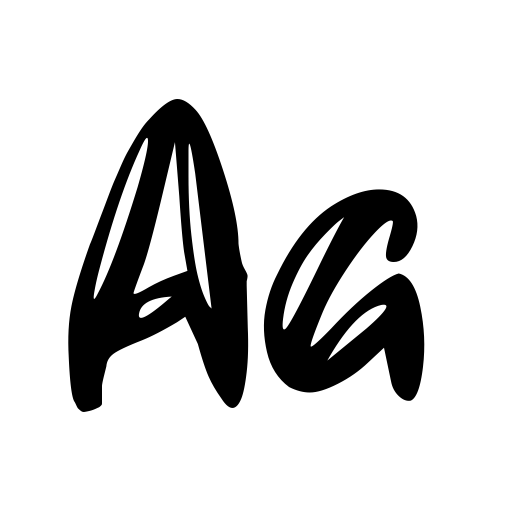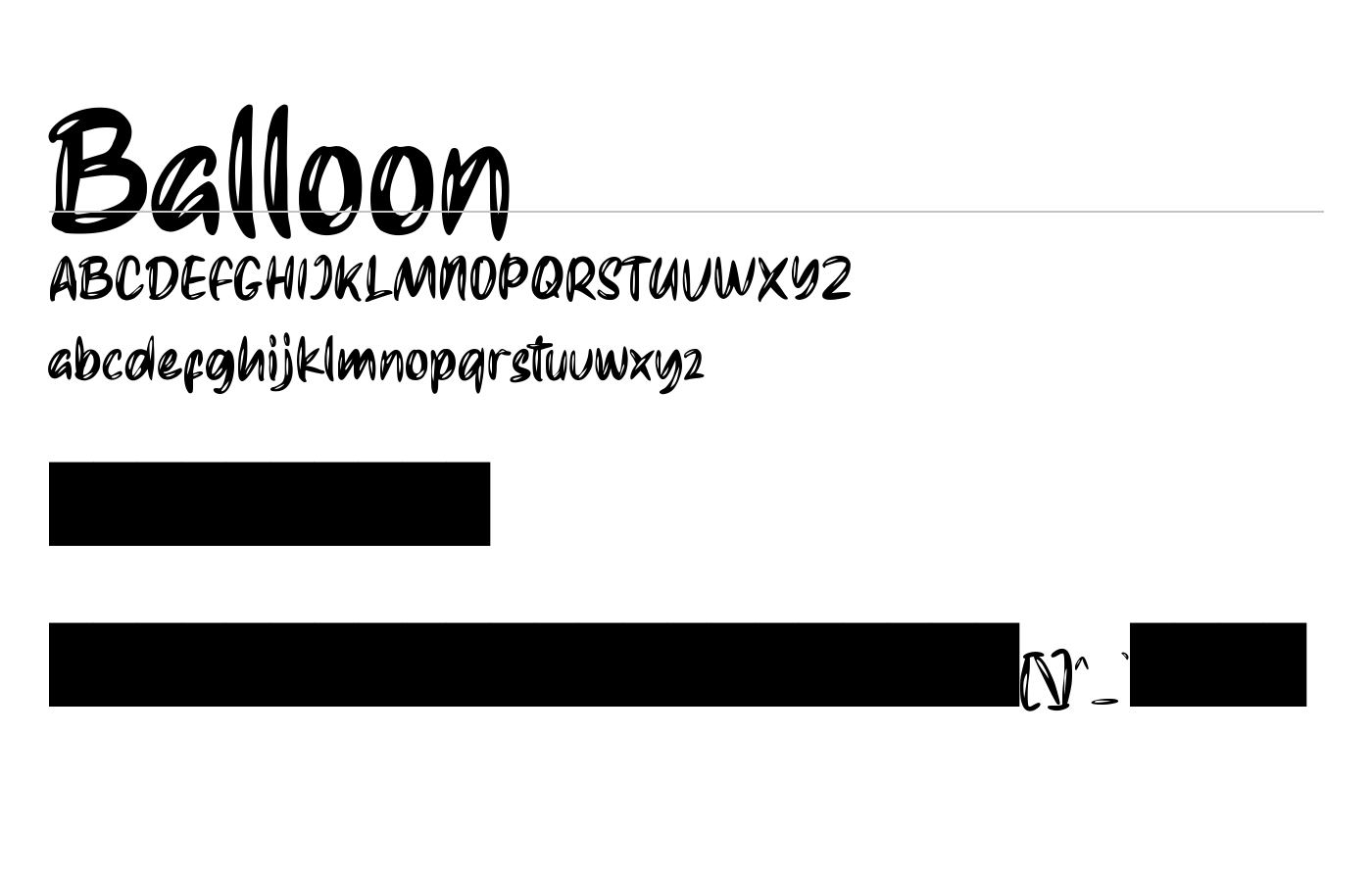
Balloon Font is a lively, casual handwritten typeface with a playful and rounded style that mimics the look of inflated balloons. Its bold, slightly irregular strokes and organic curves create an approachable and fun atmosphere, making it ideal for informal branding, children’s products, party invitations, and creative projects that seek a friendly and energetic vibe.
Balloon Font
About Balloon Font